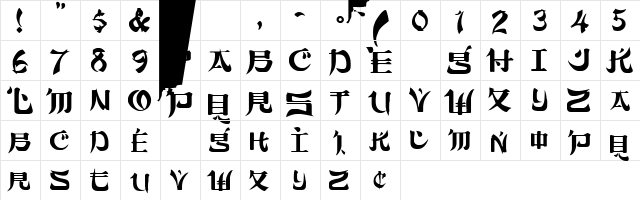
DickChamberlainsDeathF Regular Font Preview
DickChamberlainsDeathF Regular
Design Context for DickChamberlainsDeathF Typeface
DickChamberlainsDeathF carries an unsettling edge — its distorted letterforms are built to unsettle, perfectly suited to horror, Halloween, and dark creative work.
Perfect for anything that needs to unsettle — game titles, horror branding, and macabre invitations.
Font Pairing: Pair with a clean neutral sans-serif for body copy to let DickChamberlainsDeathF's character lead without overwhelming the composition.
Pro Tip: Use DickChamberlainsDeathF at larger display sizes for maximum impact. Consider generous tracking to let the disturbing character of each letterform breathe.